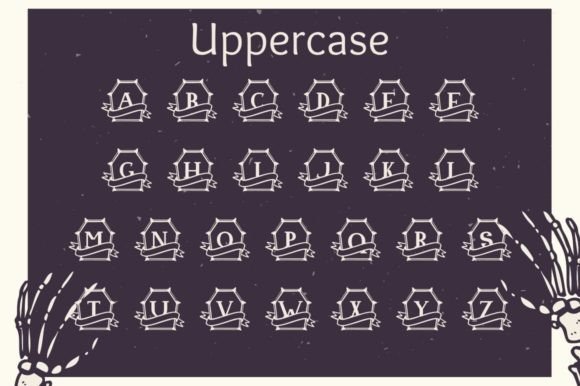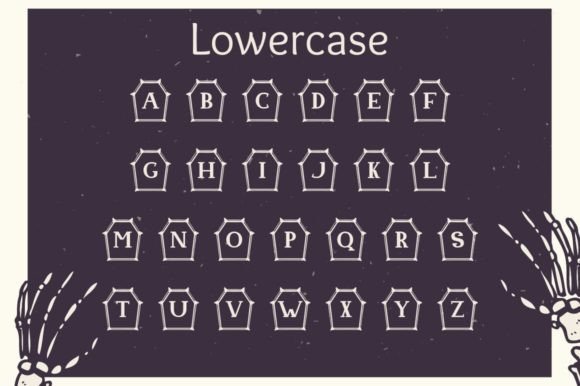
Celebrating the Spooky Season with Style
As the sun sets on Halloween night, the moon casts an eerie glow over the landscape, and our minds turn to the perfect way to capture the essence of this spooky season. It’s the perfect time to unleash your creativity and get crafty with a font that screams ‘Halloween’ – the Coffin Halloween Monogram Font.
This font is a masterclass in spooky sophistication, perfect for adding a touch of darkness to your designs, logos, and branding. Whether you’re a graphic designer, a small business owner, or simply a lover of all things Halloween, this font is a valuable addition to your toolkit. With its unique blend of scary and stylish, the Coffin Halloween Monogram Font is sure to bring your designs to life in a way that’s both haunting and beautiful.
Coffin Halloween Monogram Font Key Features
- Font Type: Monogram Font, designed specifically for Halloween-themed designs.
- Unique Characteristics: Distressed, spooky, and eerie design elements, including coffins, skulls, and other Halloween-themed motifs.
- Style: Gothic, Horror, and Spooky font styles, making it perfect for Halloween-themed designs, such as invitations, posters, and social media graphics.
Coffin Halloween Monogram Font Review
I recently had the chance to work with the Coffin Halloween Monogram Font, and I must say, it’s a unique and intriguing font. ✨ One of the things that works well with this font is its ability to add a spooky and eerie feel to any design. The monogram style is a great touch, making it perfect for Halloween-themed projects or any design that requires a touch of darkness.
Another aspect that works well is the font’s versatility. ✨ It can be used for a wide range of designs, from invitations to logos, and it’s easy to customize to fit your needs. The font is also highly legible, making it a great choice for text-heavy designs.
- ⚠️ Limited character set: The font only includes uppercase letters, which can be a limitation if you need to use lowercase letters or special characters.
- ⚠️ Limited design flexibility: While the font is versatile, it’s not a highly customizable font. You may find that you’re limited in your ability to adjust the font’s style or layout.
Overall, I’d say that the Coffin Halloween Monogram Font is a great choice for designers who are looking for a unique and spooky font. However, it’s not a font that I would recommend for every project. With its limitations in mind, it’s best used for specific Halloween-themed designs or projects where a dark and eerie feel is required.
For best results, pair the Coffin Halloween Monogram Font with dark, muted colors and bold graphics.
Use the font to create custom tombstones, witch hats, or other Halloween-themed elements.
Experiment with different font sizes and styles to create a spooky, eerie atmosphere.